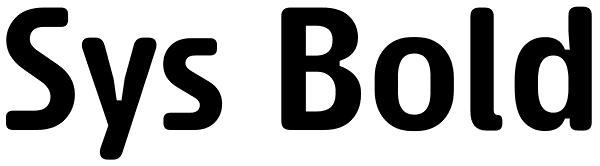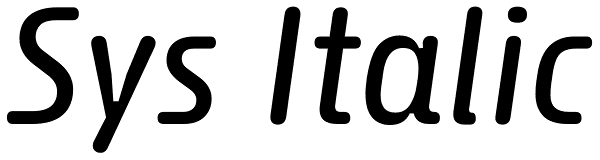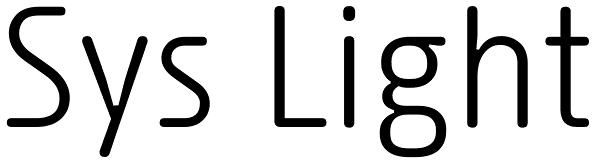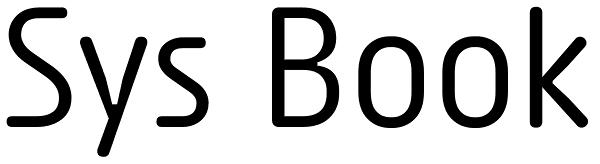
Sys 2.0
Sys is a condensed font designed to work well at small sizes (i.e. phone books, maps, or the like) but it has enough personality to be used at big sizes, too. The TrueType version, thanks to its incredibly accurate hinting, may be used to replace...